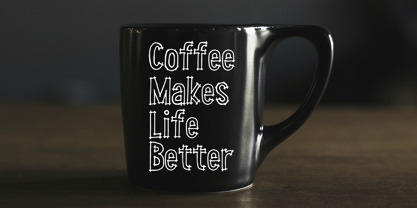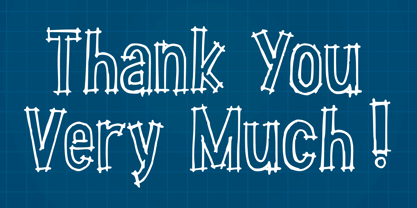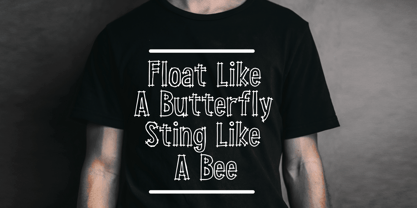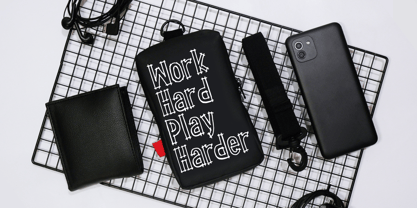
Handdrawn Blueprint Project
by Mvmet
The Handdrawn Blueprint Project Font Family was designed by Gabriel Valentinus and published by Mvmet. Handdrawn Blueprint Project contains 1 styles. More about this family
Hand-drawn outline display font — a sketchy, cartoon/blueprint-style decorative typeface.
Handdrawn Blueprint Project is a hand-drawn outline display font with a sketchy blueprint vibe—think cartoon-era drafting notes and quick pencil marks. Loose, irregular strokes, subtle wobbles, and rough edges create an authentic, in-progress look that’s lively yet readable. Its airy outlines invite color fills and layering, perfect for stickers, t-shirt graphics, playful logos, comics, and bold cover or poster titles. Use it whenever you want that mix of DIY energy and technical charm—fun, approachable, and instantly expressive.
Designers: Gabriel Valentinus
Foundry: Mvmet